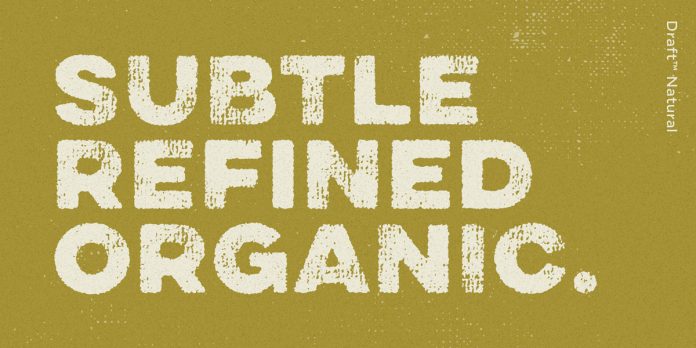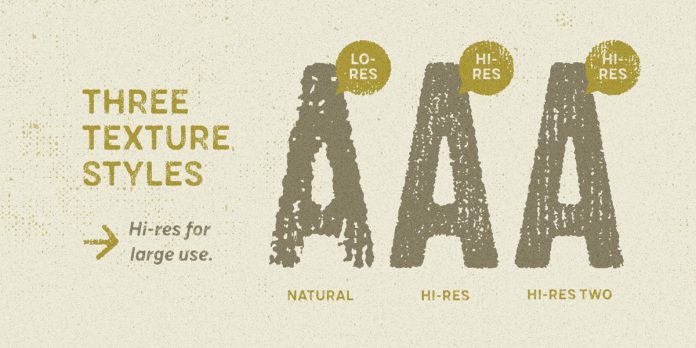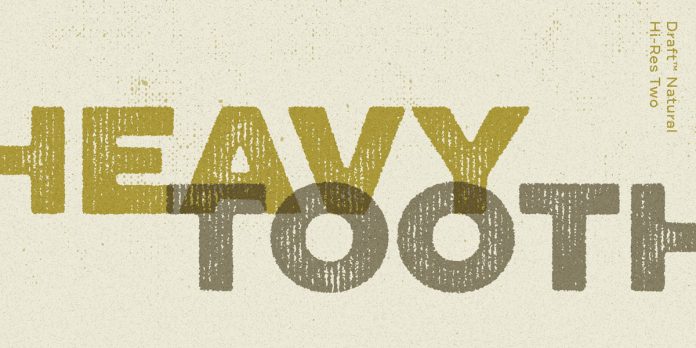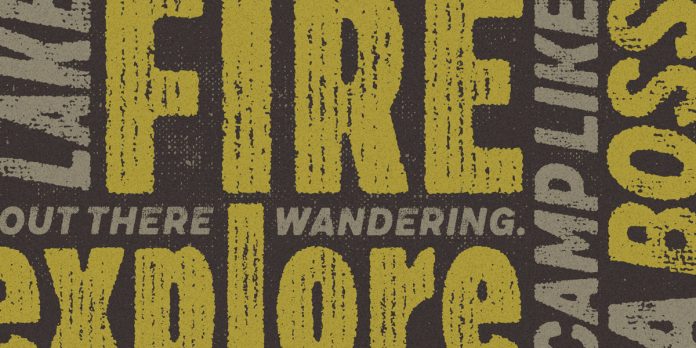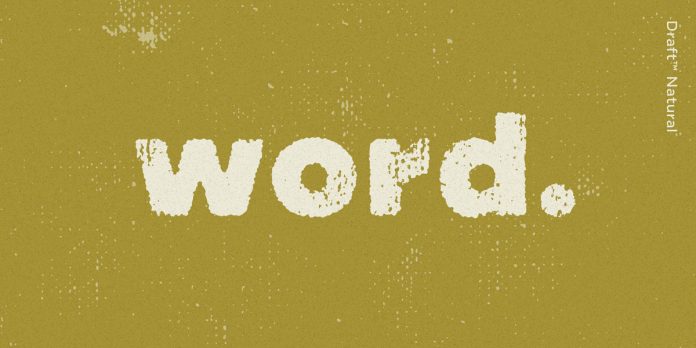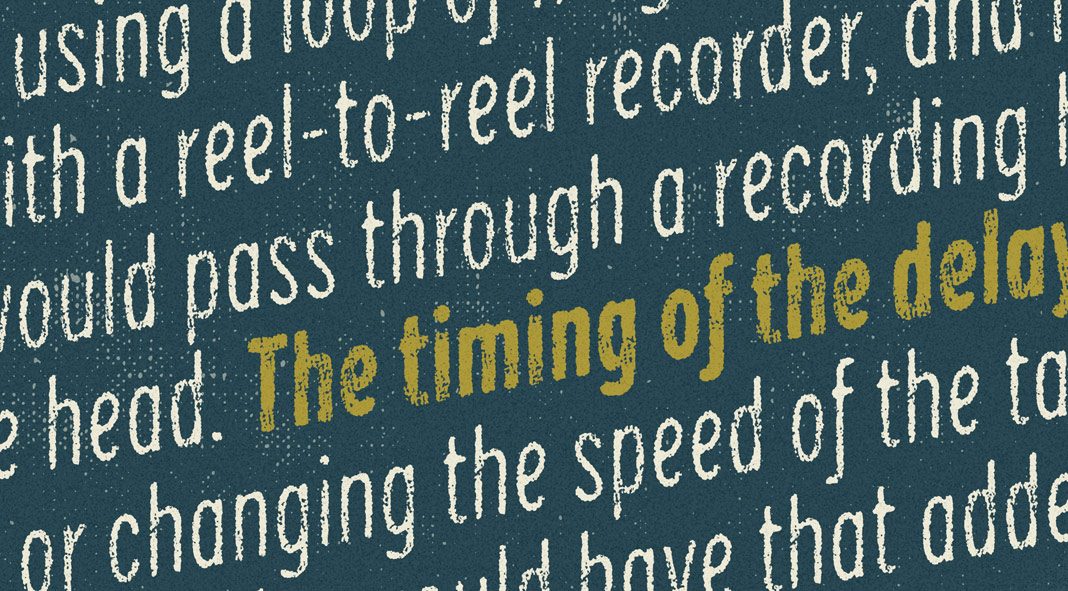
Draft Natural, a premium hand-crafted font family from Yellow Design Studio.
Designed by Ryan Martinson and recently published by Yellow Design Studio, Draft Natural is the right choice for any kind of typographic work with an authentic vintage look and feel. The hand-crafted font collection is characterized by subtle, organic textures. The realistic grain effect adds a warm, authentic touch to your projects. Draft Natural’s base fonts are equipped with both upper and lowercase letters in four widths and four weights plus matching Italics for each weight. Furthermore, the font collection comes with additional hi-res sub-families for extra large sizes. The collection also includes three texture styles, double-letter ligatures, alternates, and multi-language support. To learn more, just follow the links below.